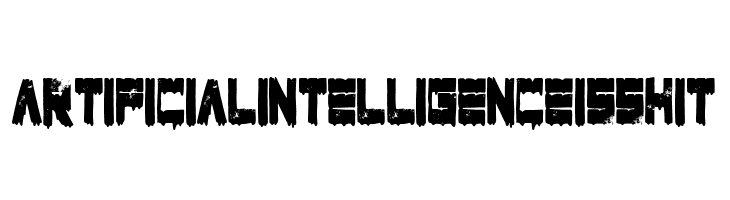
A modern, oblique font with clean, geometric lines and consistent stroke widths.
A modern, geometric sans-serif font with clean lines and balanced spacing.
A sleek, modern oblique font with a light weight and clean, minimalist design.
A modern, geometric sans-serif font with a clean and professional look.
A modern, oblique sans-serif font with clean lines and dynamic style.
A bold, distressed font with a vintage, grunge aesthetic.
A bold serif font with high contrast and strong, elegant serifs.
A bold, elegant serif font with high contrast and classic styling.
A bold, modern serif font with elegant curves and strong strokes.
A bold, rounded font with a modern and approachable style.
A thin, elegant font with elongated strokes and a whimsical touch.
A playful, handwritten font with bold, irregular strokes and a casual, dynamic feel.
A bold, 3D font with strong outlines and shadow effects, ideal for impactful designs.
A bold, playful font with rounded, bubbly characters.
A bold, cursive font with decorative loops and high contrast, perfect for eye-catching designs.
A bold, oblique font with a futuristic and dynamic style.
A bold, futuristic font with geometric shapes and angular design.
A bold, modern font with geometric shapes and sharp angles.
A dynamic, brush-style font with expressive strokes and an artistic flair.
A bold, decorative font with a three-dimensional effect and strong visual impact.
A bold, modern, and geometric font with a condensed structure.
A flowing, cursive script font with elegant loops and a modern appeal.
A bold, playful font with exaggerated curves and a cartoonish style.
A bold, geometric font with sharp angles and modern design.
A bold, geometric font with sharp angles and a modern aesthetic.
A bold, italicized typeface with a dynamic and modern style.
A bold, italic font with sharp angles and a modern, dynamic style.
A classic serif font with elegant strokes and refined details.
A bold serif font with classic styling and moderate stroke contrast.
A bold, italic serif font with elegant, flowing strokes.
An elegant serif italic font with moderate contrast and refined style.
A bold, 3D italic font with a dotted outline for a striking effect.
A bold, 3D decorative font with dotted accents and shadow effects.